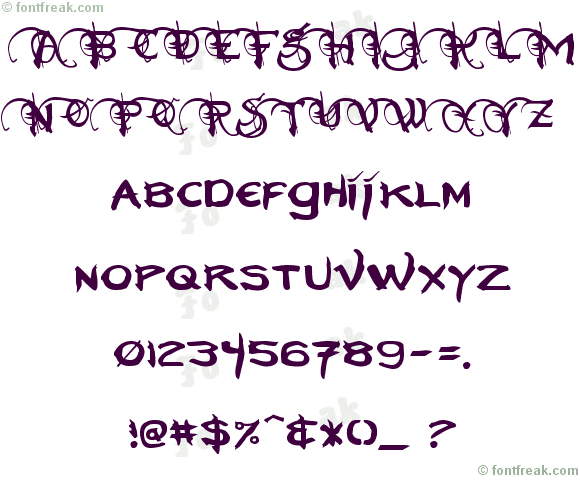
Neverwinter
About Neverwinter
The Neverwinter font, designed by Neale Davidson in 2011, is a captivating display typeface that exudes an enchanting and whimsical character. As a decorative font, it features fluid, organic letterforms that draw the eye with their unique charm. The stroke weight varies throughout the characters, providing a dynamic contrast that adds to its artistic flair. The spacing is designed to create a harmonious flow, allowing for easy readability while maintaining a distinct visual presence. Decorative elements, such as swirls and playful curves, enhance the overall fantasy-inspired aesthetic, making it a perfect choice for projects aiming to evoke a sense of magic.
This font excels in specific use cases, including wedding invitations that require a touch of elegance and romance, movie posters that aim to capture the imagination, and fantasy-themed graphic novels that benefit from its whimsical style. Additionally, it can be effectively utilized for restaurant menus that emphasize a creative dining experience or for event flyers that seek to engage and attract attention. The Neverwinter font caters to a diverse audience, particularly graphic designers in search of unique typefaces, small business owners looking to establish a distinctive brand identity, and content creators who want to enhance their visual storytelling.
What sets the Neverwinter font apart is its ability to seamlessly blend artistry with functionality. Its distinctive style not only makes it visually appealing, but also versatile enough to suit a variety of creative projects. By downloading the Neverwinter font free, users can incorporate this enchanting typeface into their work, enriching their designs with a sense of wonder and imagination. Whether you're crafting promotional materials or personal projects, this font promises to leave a lasting impression.